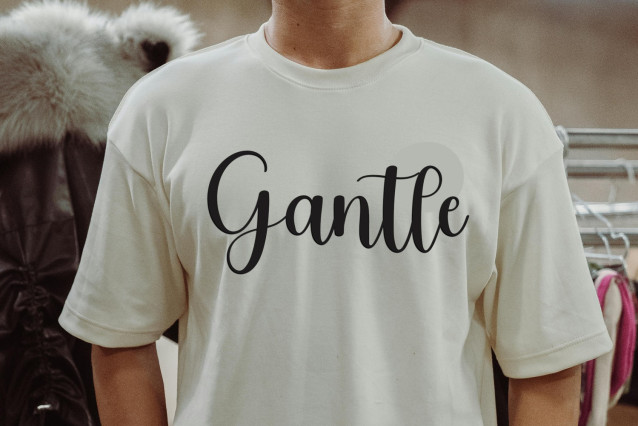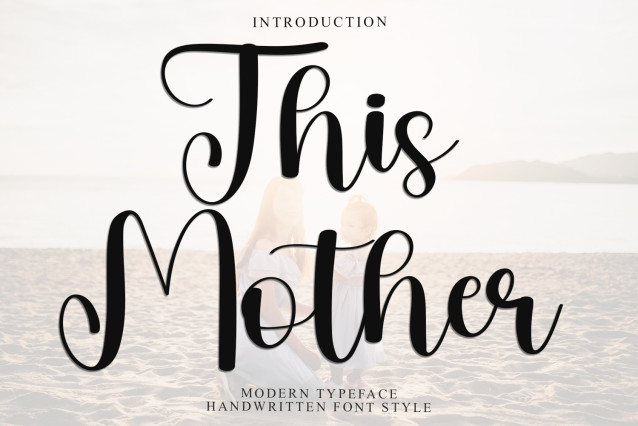
This Mother Font
This Mother Font is a festive and merry typeface that captures the spirit of the holiday season. With its decorative elements and whimsical flair, it adds a touch of enchantment to your designs. Perfect for greeting cards, gift tags, and holiday-themed projects, this font brings a cheerful and nostalgic ambiance to your words. Let your typography shine with the magic of Beautiful Font!